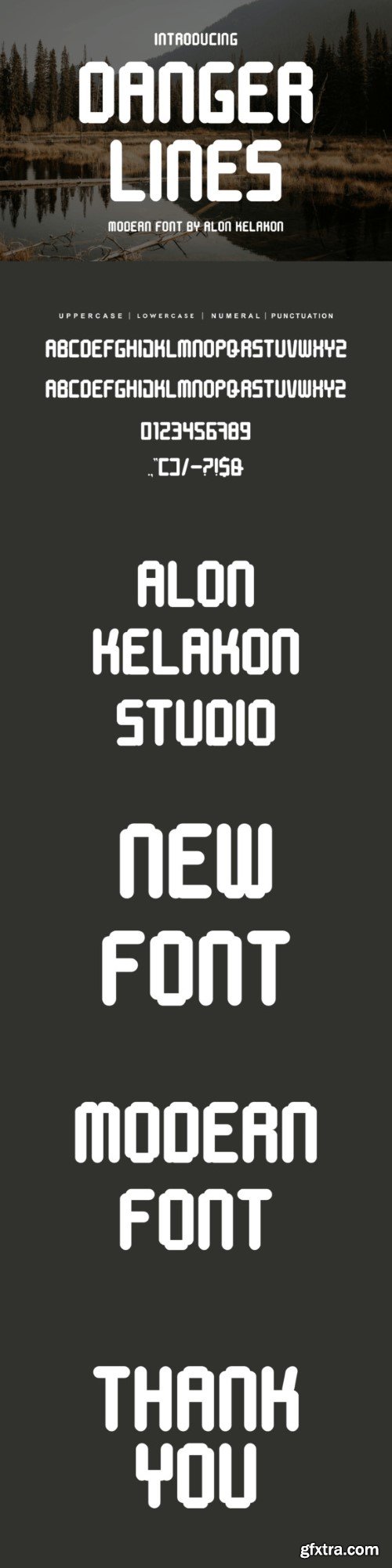
危险线条字体
Danger Lines Font is unique . Ready to use for your design like labeling, clothing, movie sceen, poster, movie title, gigs, album covers, logos, and much more.